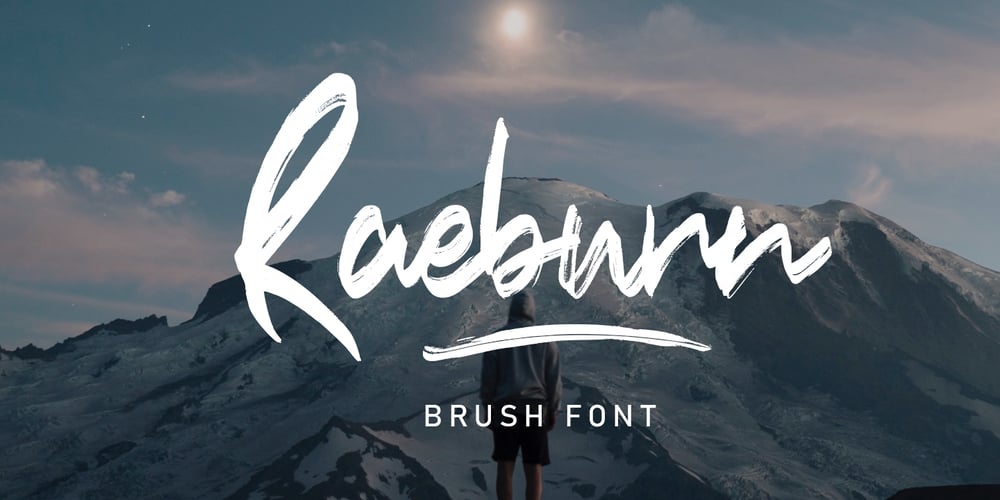
Raeburn Font Family was designed by Asep Rendi and published by Arendxstudio. Raeburn contains 2 styles and family package options. Raeburn is a script with a distinctive look, and is perfect for branding projects, logos, wedding designs, media posts, advertisements, product packaging, product designs, labels, photography, watermarks, invitations, stationery, and any project who need a handwritten look. Features : • Character Set A-Z • Numerals & Punctuations (OpenType Standard) • Accents (Multilingual characters) • Ligature • Swash There it is! I really hope you enjoy it – comments and likes are always welcome and accepted. More importantly, don’t hesitate to send a message if you have a problem or question.